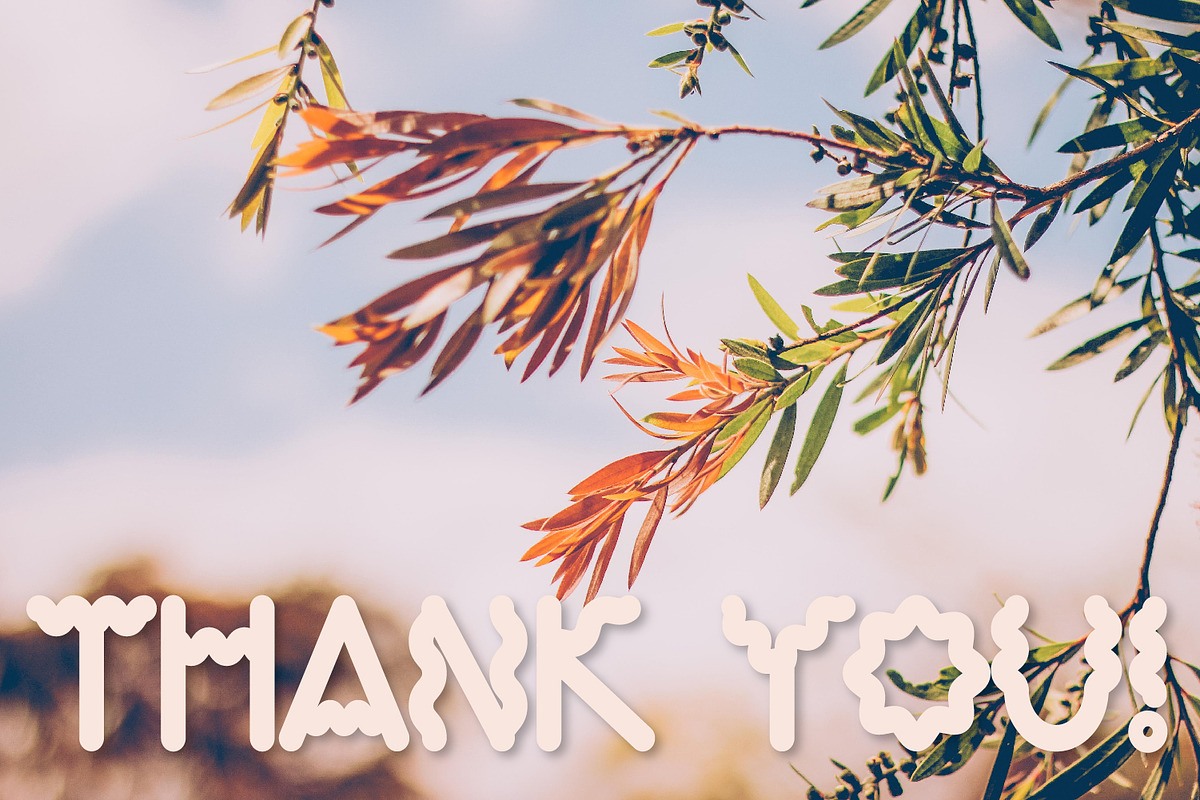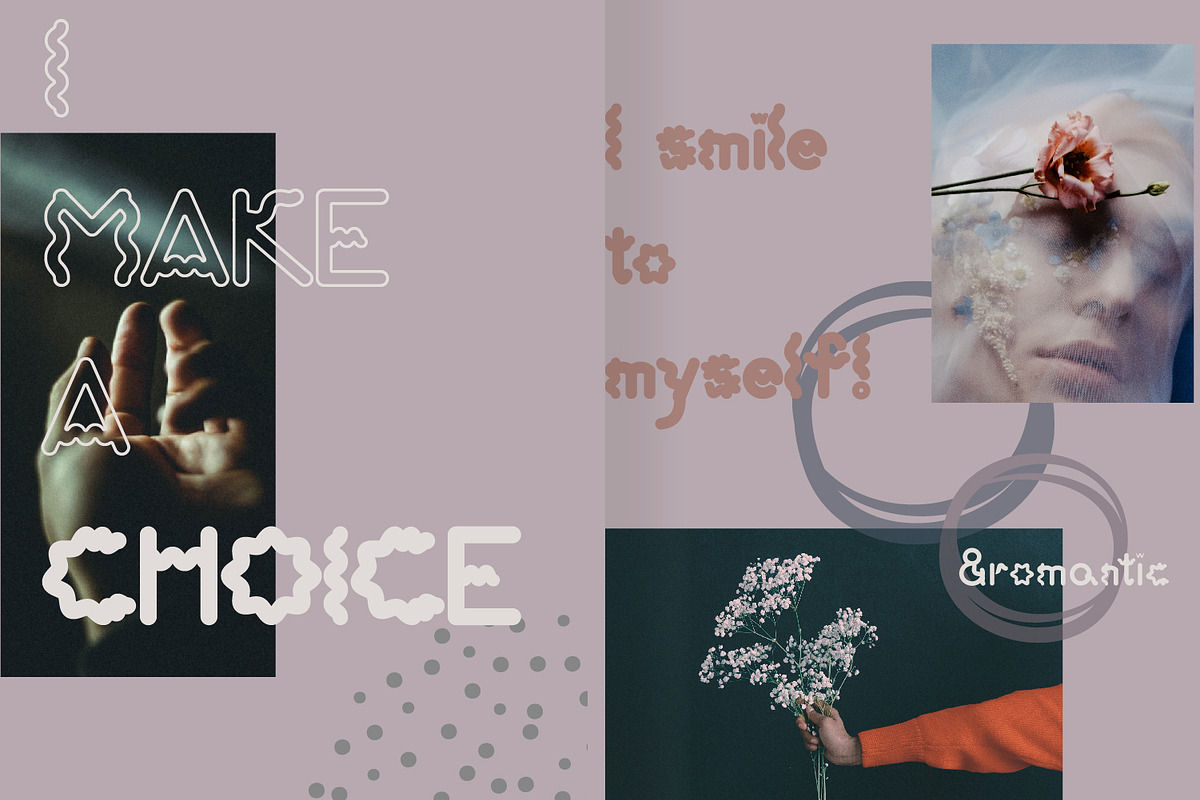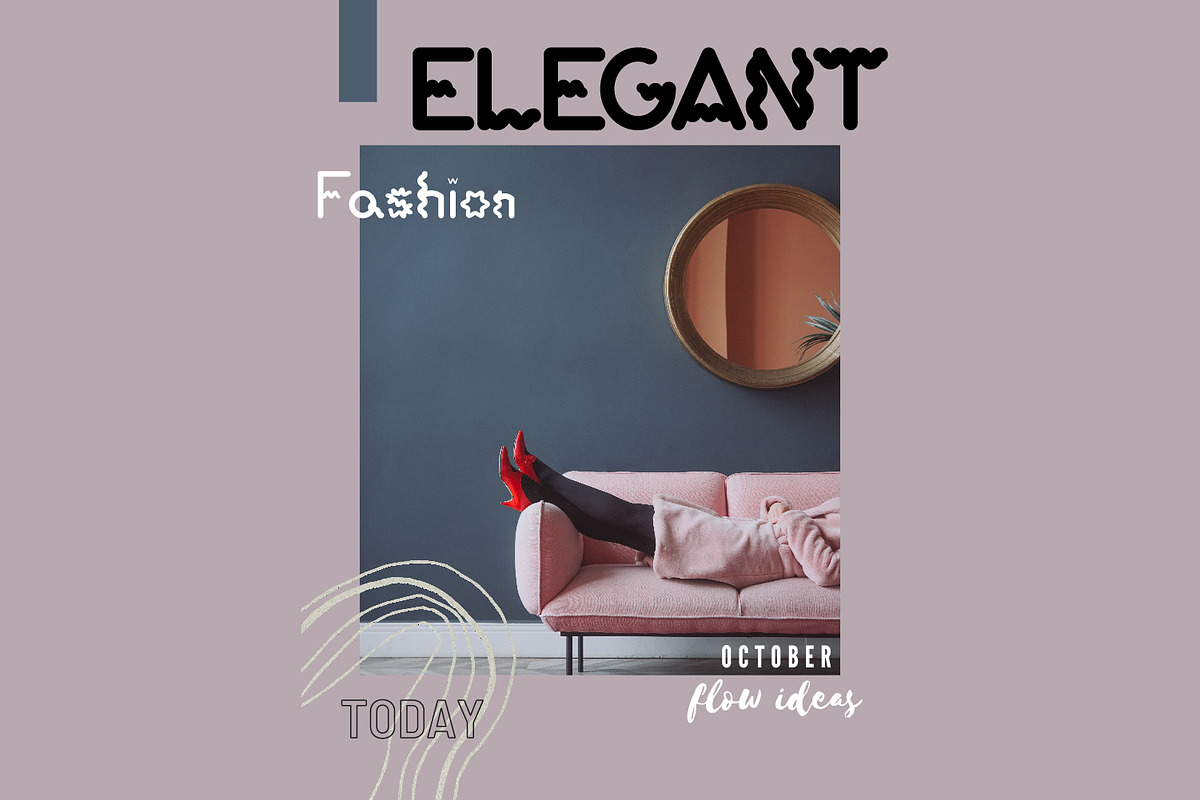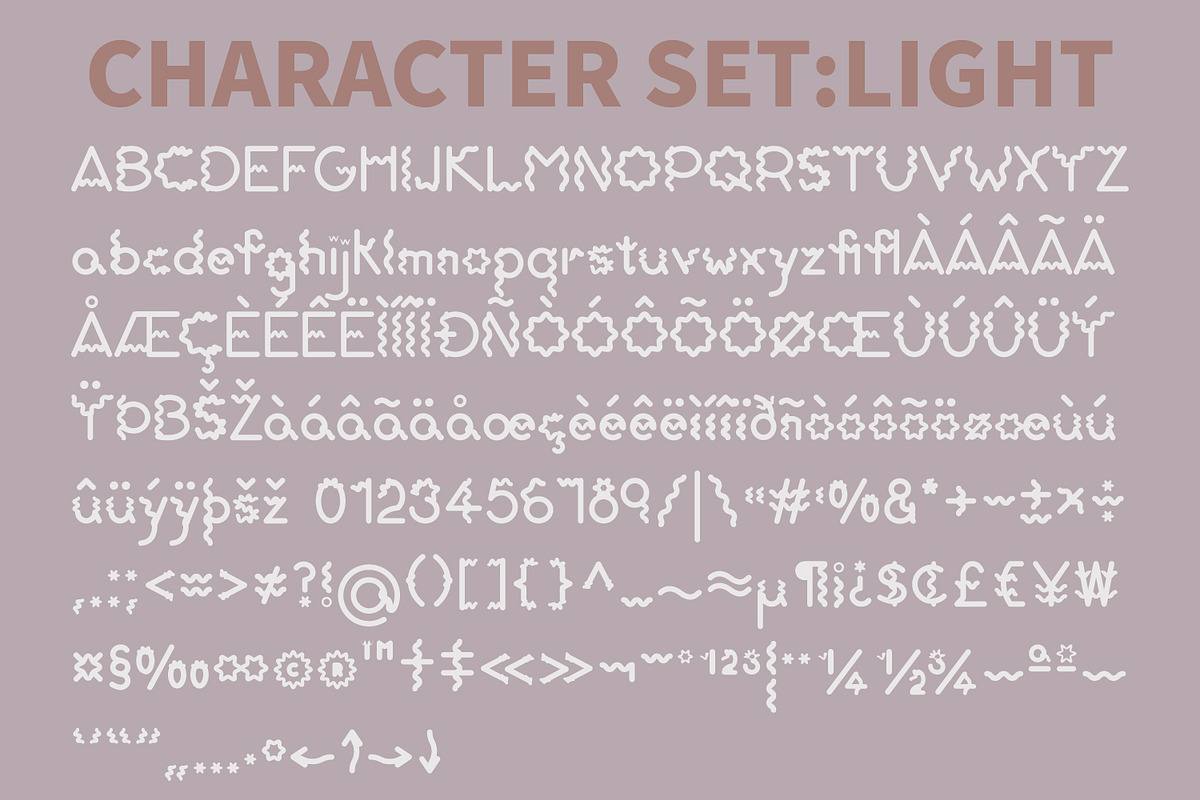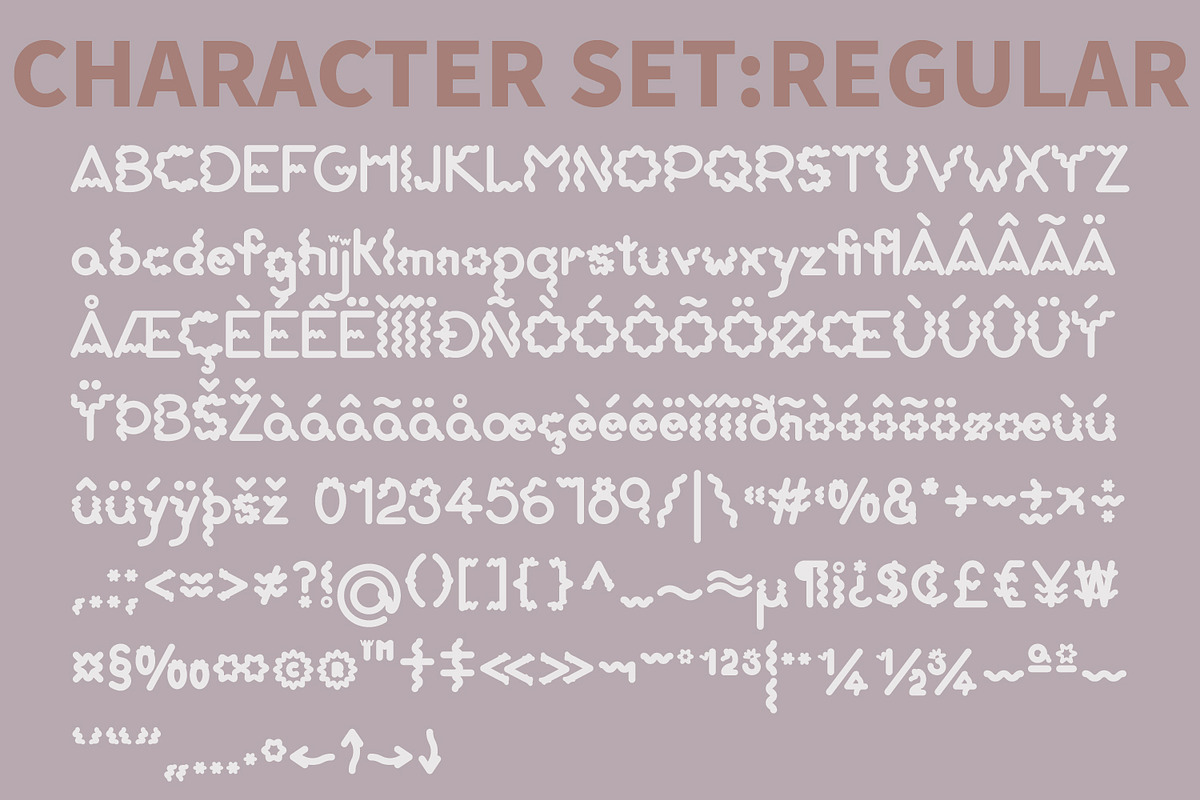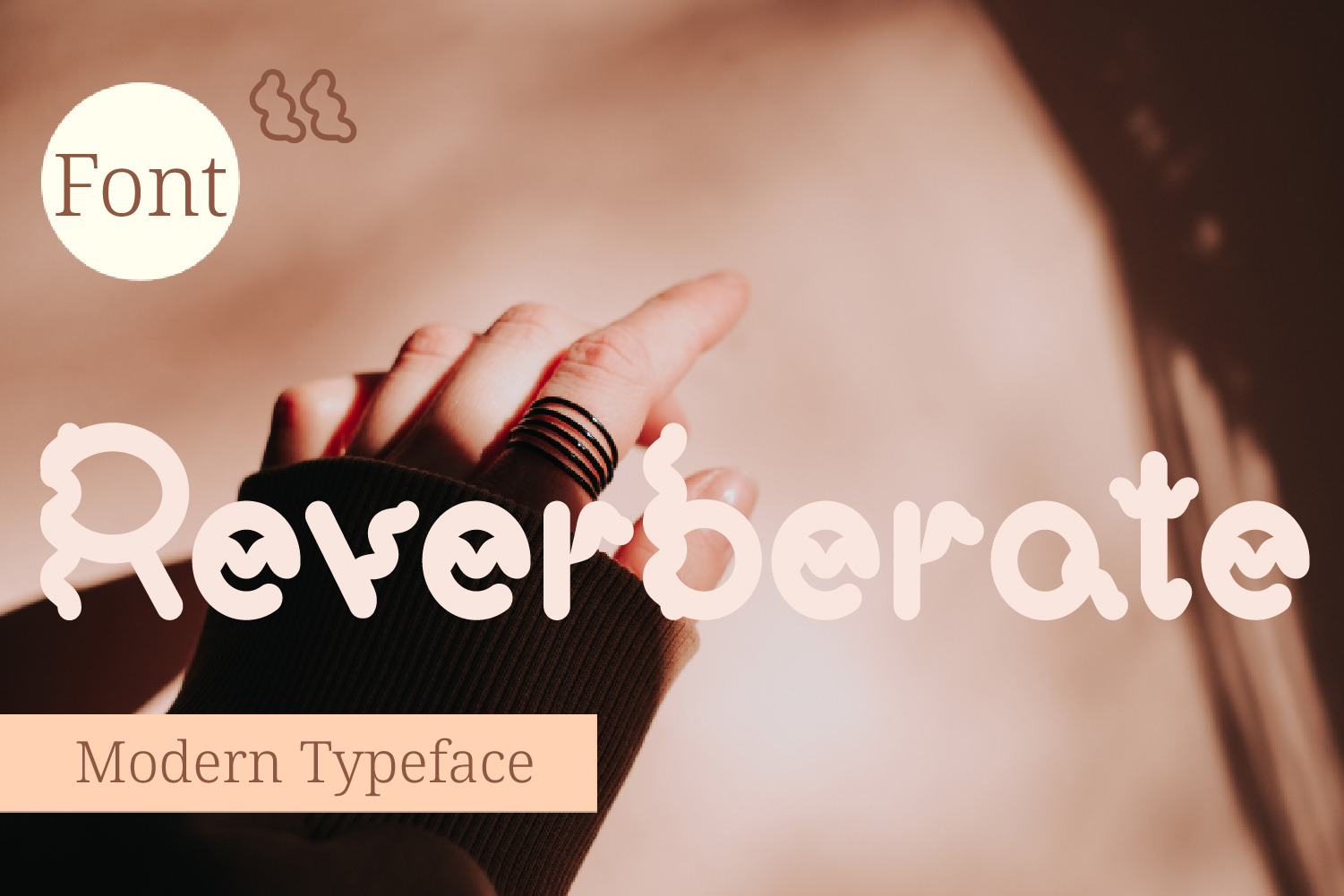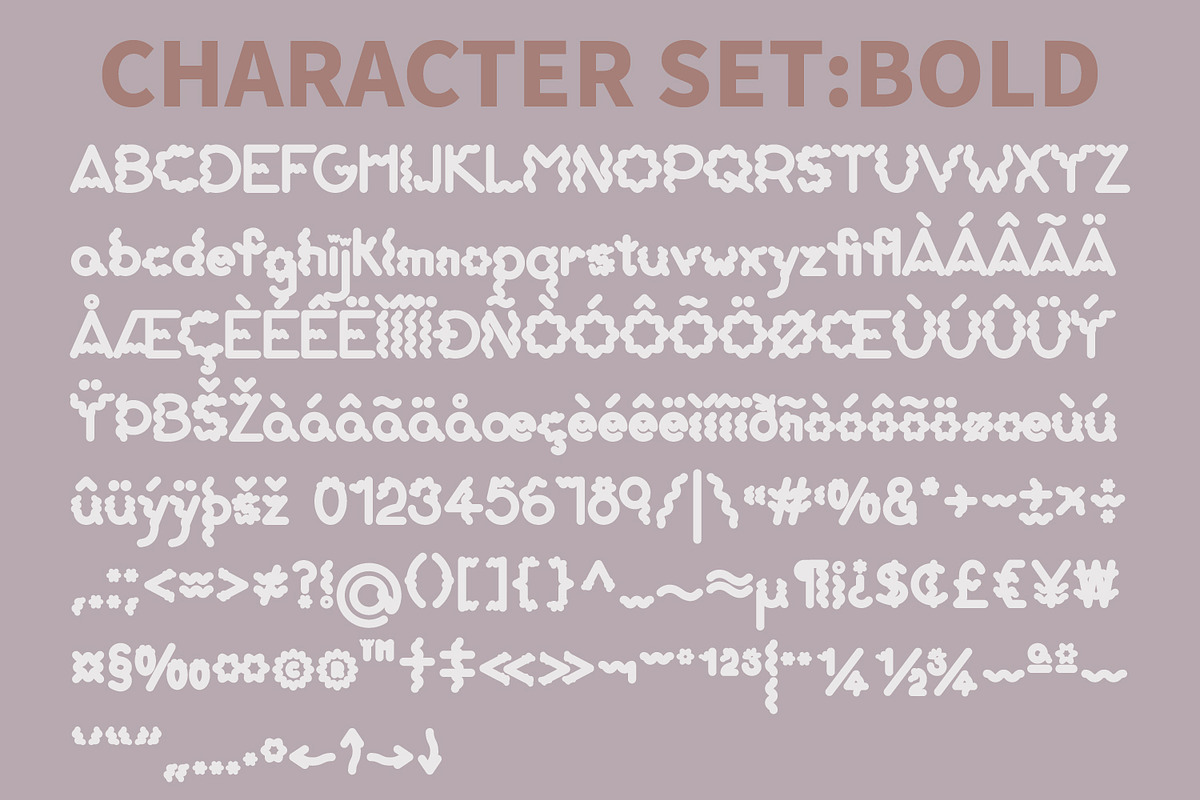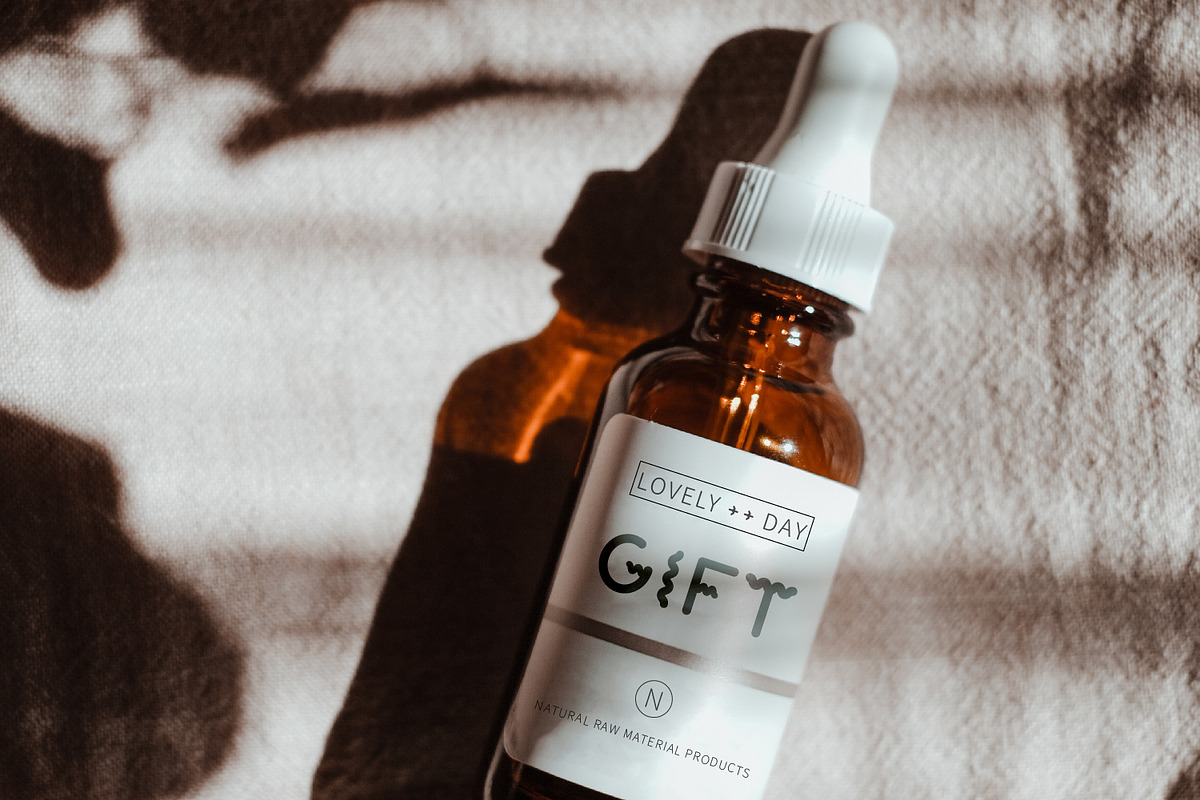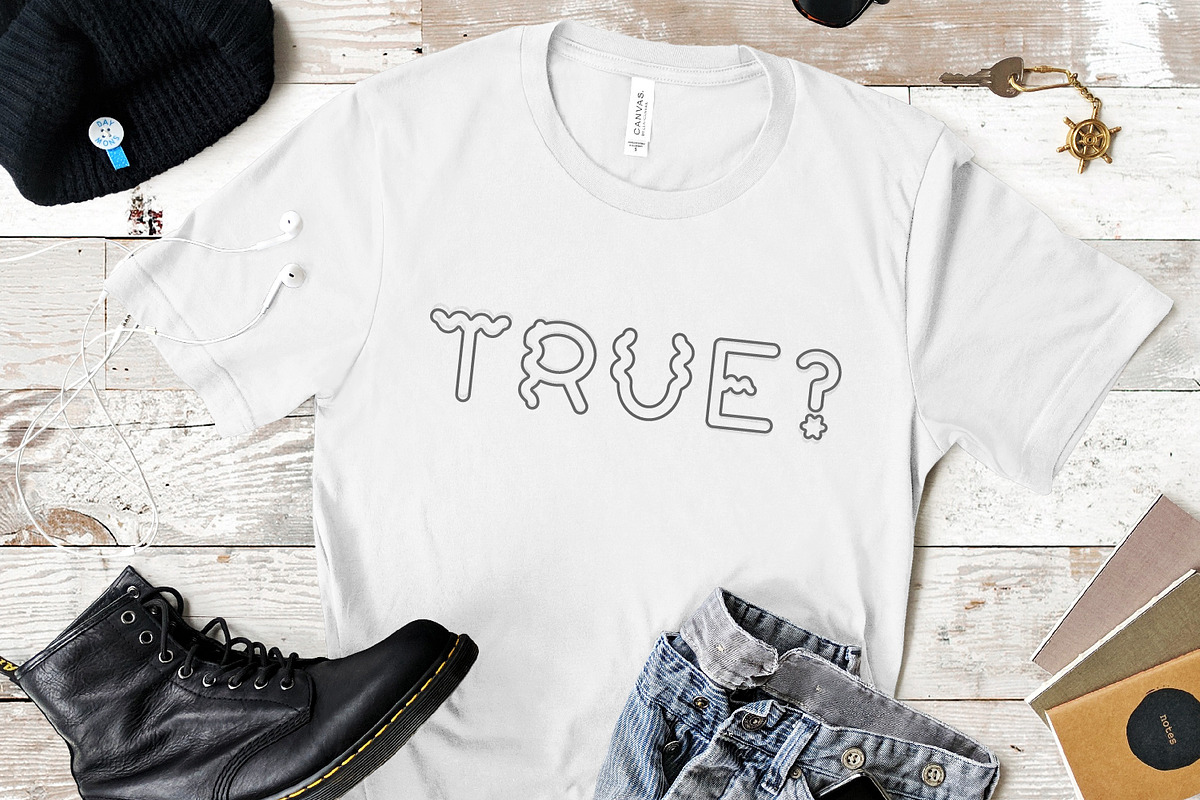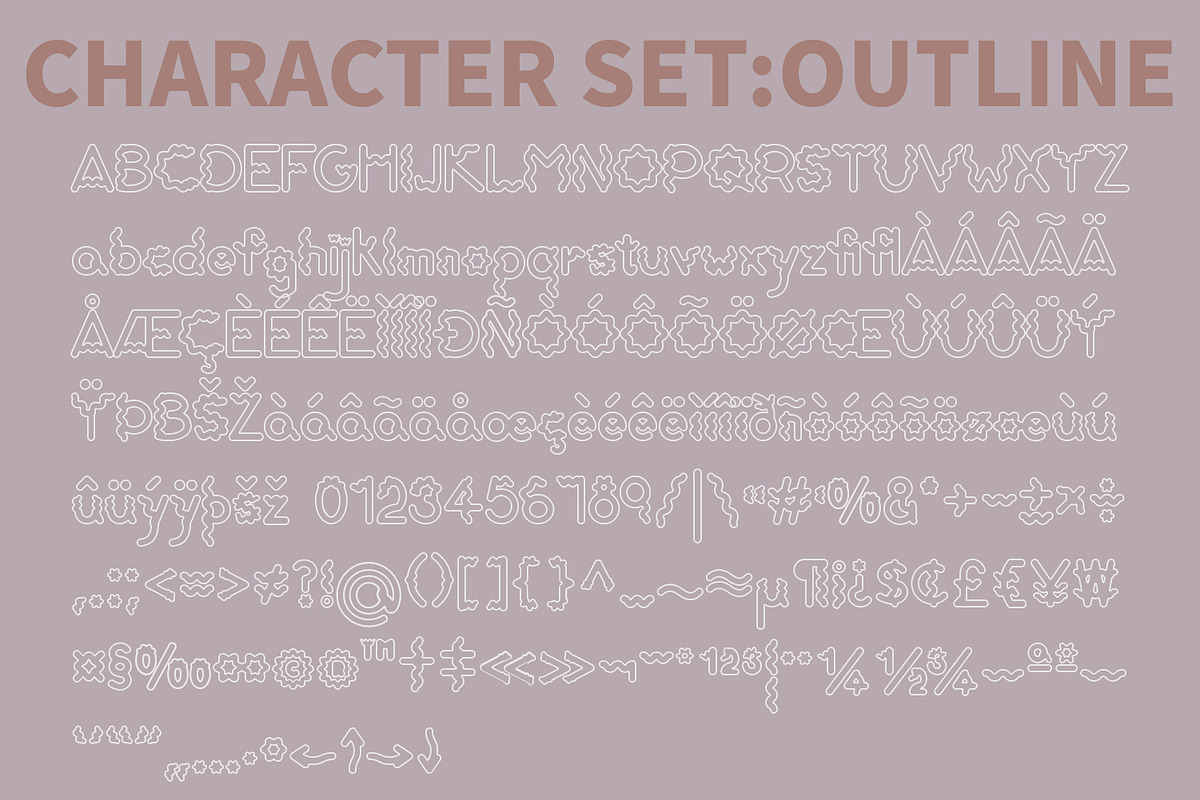
Reverberate Modern Sans Serif Font
Reverberate Modern Sans Serif Font has four fonts. Light, Regular, Bold and Outline. Modern and stylish fonts with beautiful curves. This font is suitable for titles, posters, packaging, banners, book design, business card design, etc. Provide elegant, smooth and symbolic design.